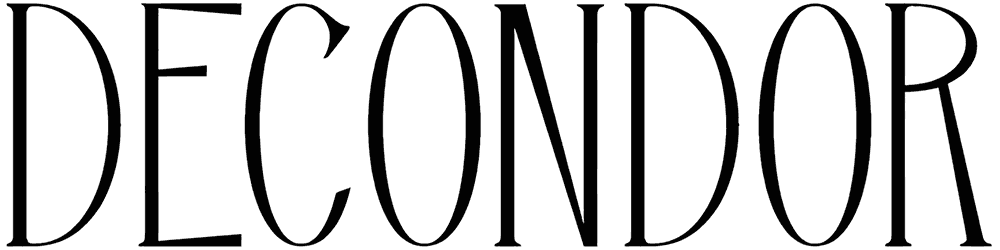
Decondor Font
A delicate serif font like Decondor, with its alarming vibe and doodle aspiration, is a clever pick to reflect creativity and art. This Decondor font, while carrying out all characters, provides you with free action as you fancy.
Based on your preference, this work is one of the best drafts that takes your setup to a more elevated level and sweetens banners, book covers, special quotes, etc. Who wouldn’t enjoy a mash-up of standards along with just a hint of loyal vibes?